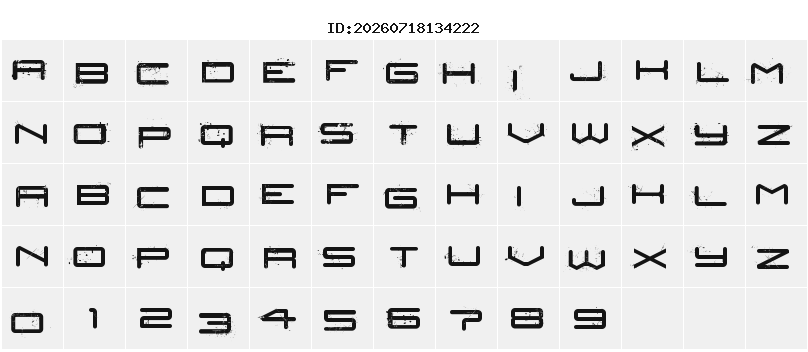
• Font Name: Car Crash
• Designer: imagex
About Car Crash.ttf
Car Crash.ttf is a modern, elegant sans-serif font designed for ultimate readability and visual harmony. Perfect for branding, headlines, web design, and print materials.